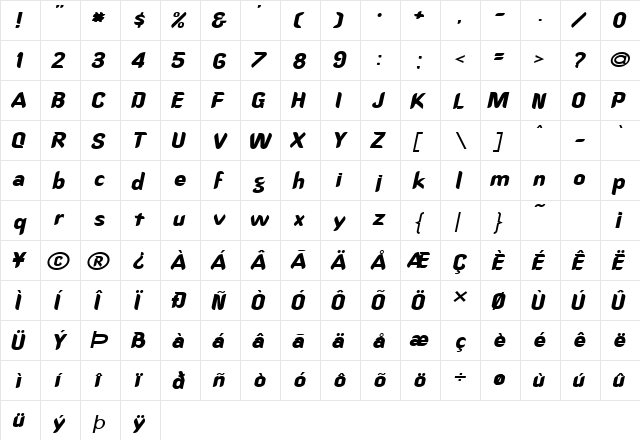
CallimarkerExtended Italic
Design Context for CallimarkerExtended Typeface
CallimarkerExtended takes a measured approach to typography — its balanced proportions and neutral character make it a reliable workhorse for both digital and print work. Its italic angle brings a sense of urgency and motion to the letterforms.
Pro Tip: Use CallimarkerExtended for emphasis, pull quotes, and subheadings where its slanted energy can add rhythm to the layout.